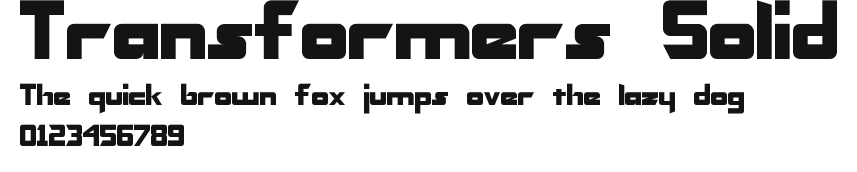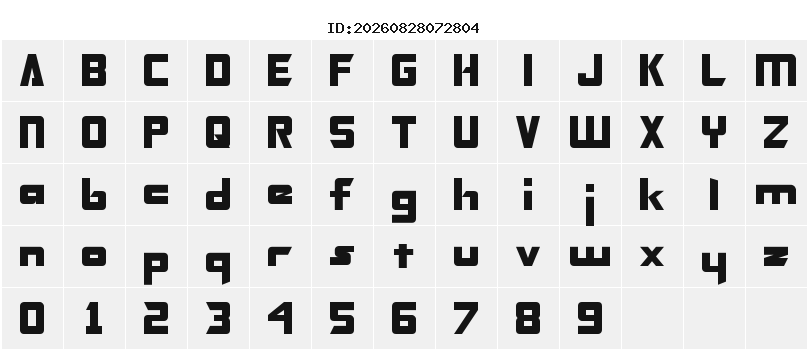
• Font Name: Transformers Solid
About Transformers Solid.ttf
Transformers Solid.ttf is a modern, elegant sans-serif font designed for ultimate readability and visual harmony. Perfect for branding, headlines, web design, and print materials.